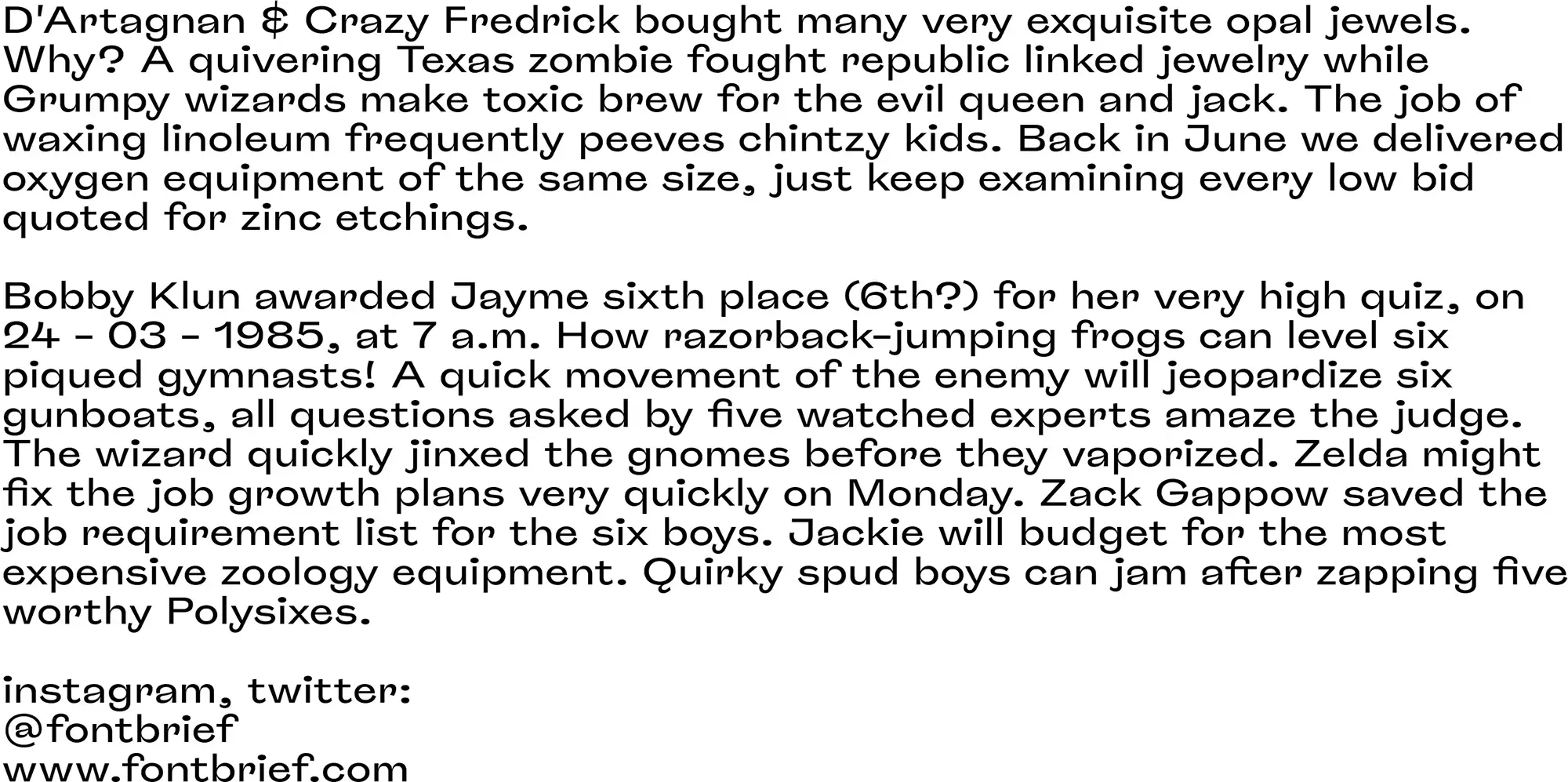
Roquefort (the typeface) is a quirky expanded grotesque, which, like Roquefort (the cheese), is pongy and full of flavour. However, where Roquefort (the cheese) develops its pungent tang through a lengthy maturation process, Roquefort (the typeface) takes the opposite approach.
With the desire to avoid the over-thinking and over-refinement that can slowly sanitise a typeface design over time, Roquefort (the typeface) was produced hastily, with the hope of creating a grotesque with all the wonky inconsistencies that give a grot its distinct flavour.